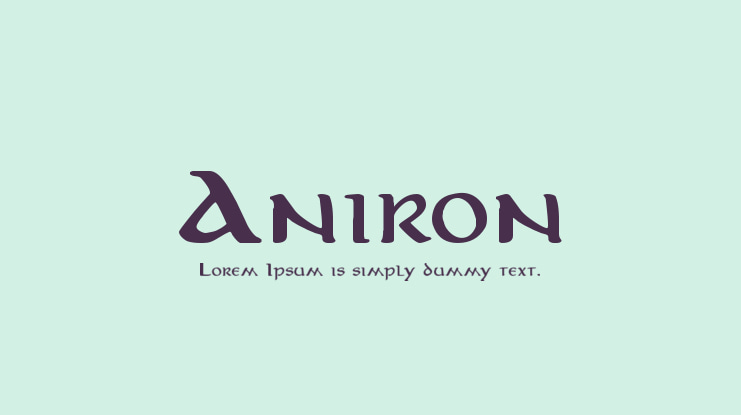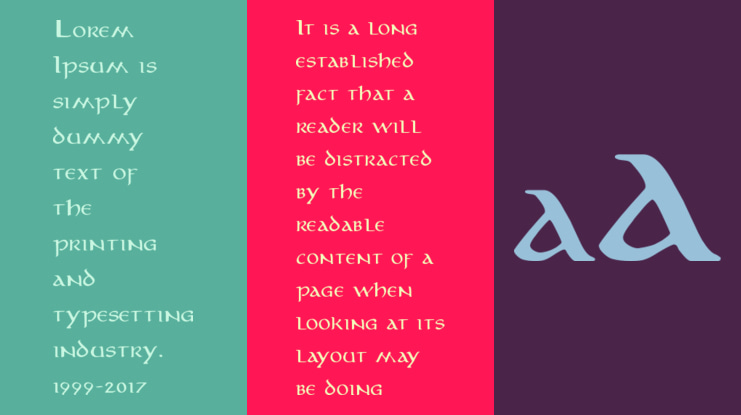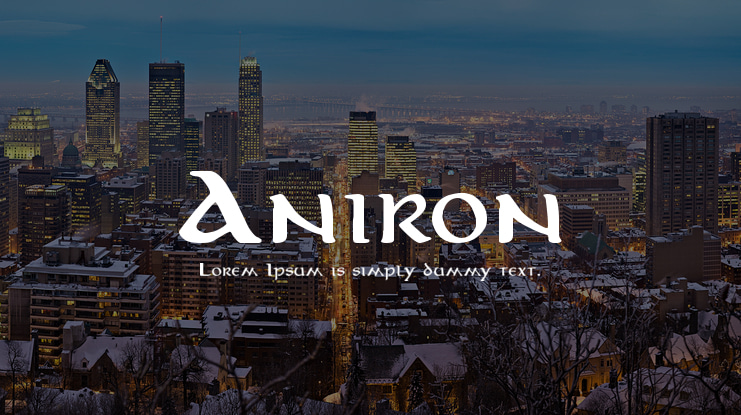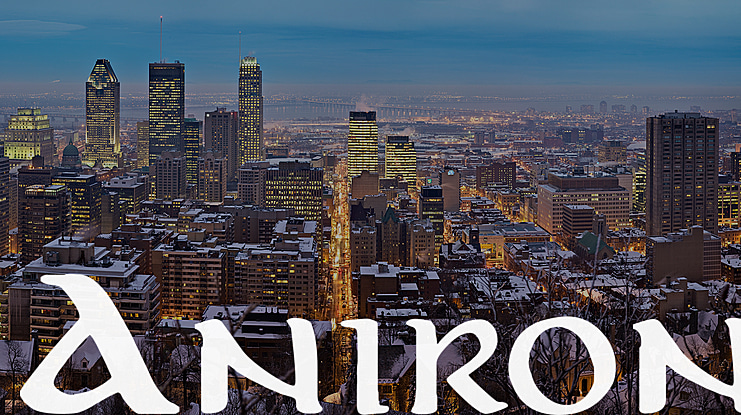
Aniron Font Family
The Aniron font is a replication of the font used in the front and end credits of Peter Jackson's "The Lord Of The Rings" trilogy. It has been created by analyzing the characters in the movie credits as well as "Lord of the Rings" SEE DVD, where this font is used to a great extent.
Because the resolution on DVD is not high enough, I had to retrace the characters manually. Also, I created some missing characters, as well as the punctuation, numbers, and some other characters. Also, a Cyrillic character set has been created from scratch.
The font contains the following character tables:
- Latin alphabet (the usual)
- Extended Western characters (accent characters like í, ä)
- Cyrillic characters (Russian alphabet)
- Numbers, punctuation etc.